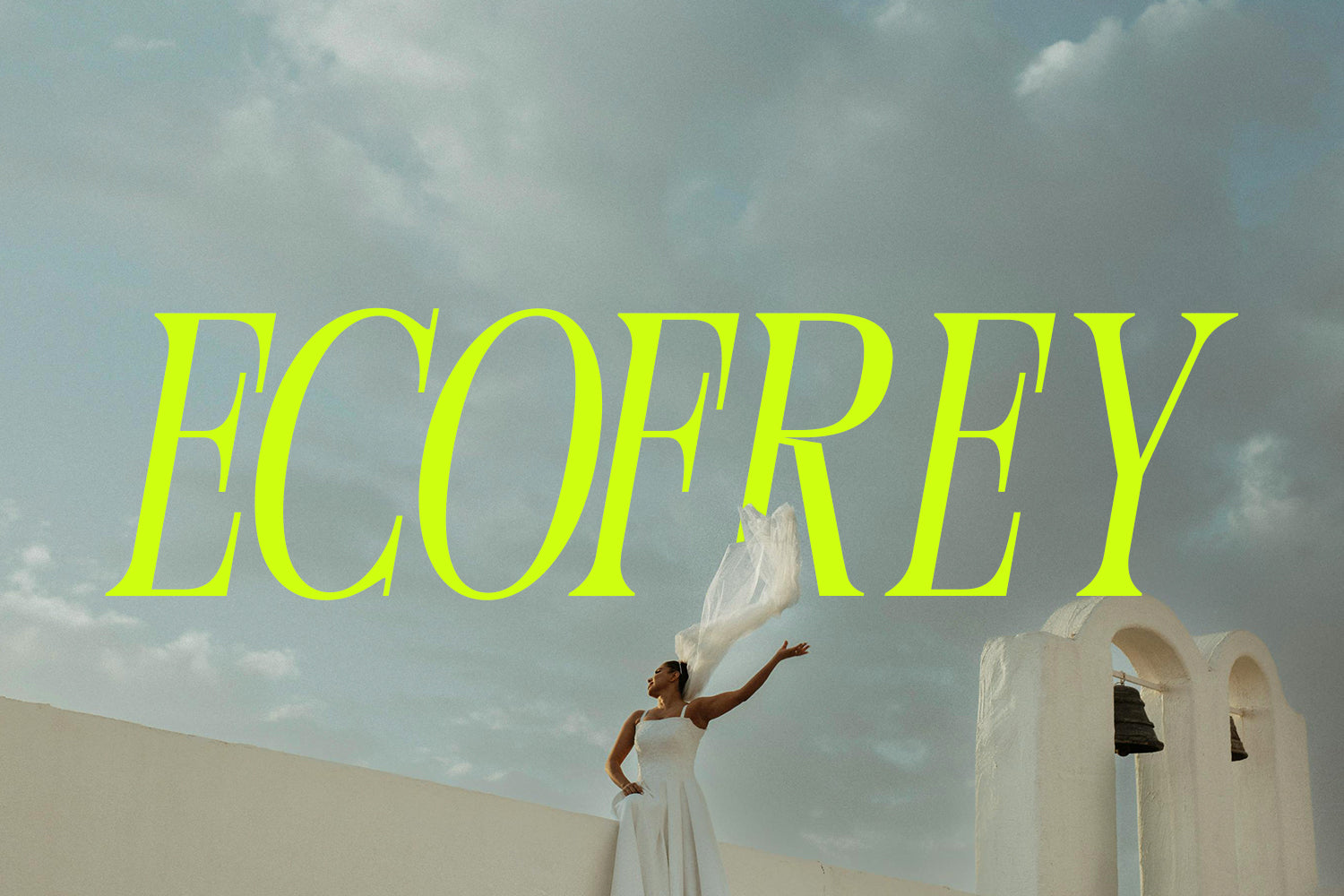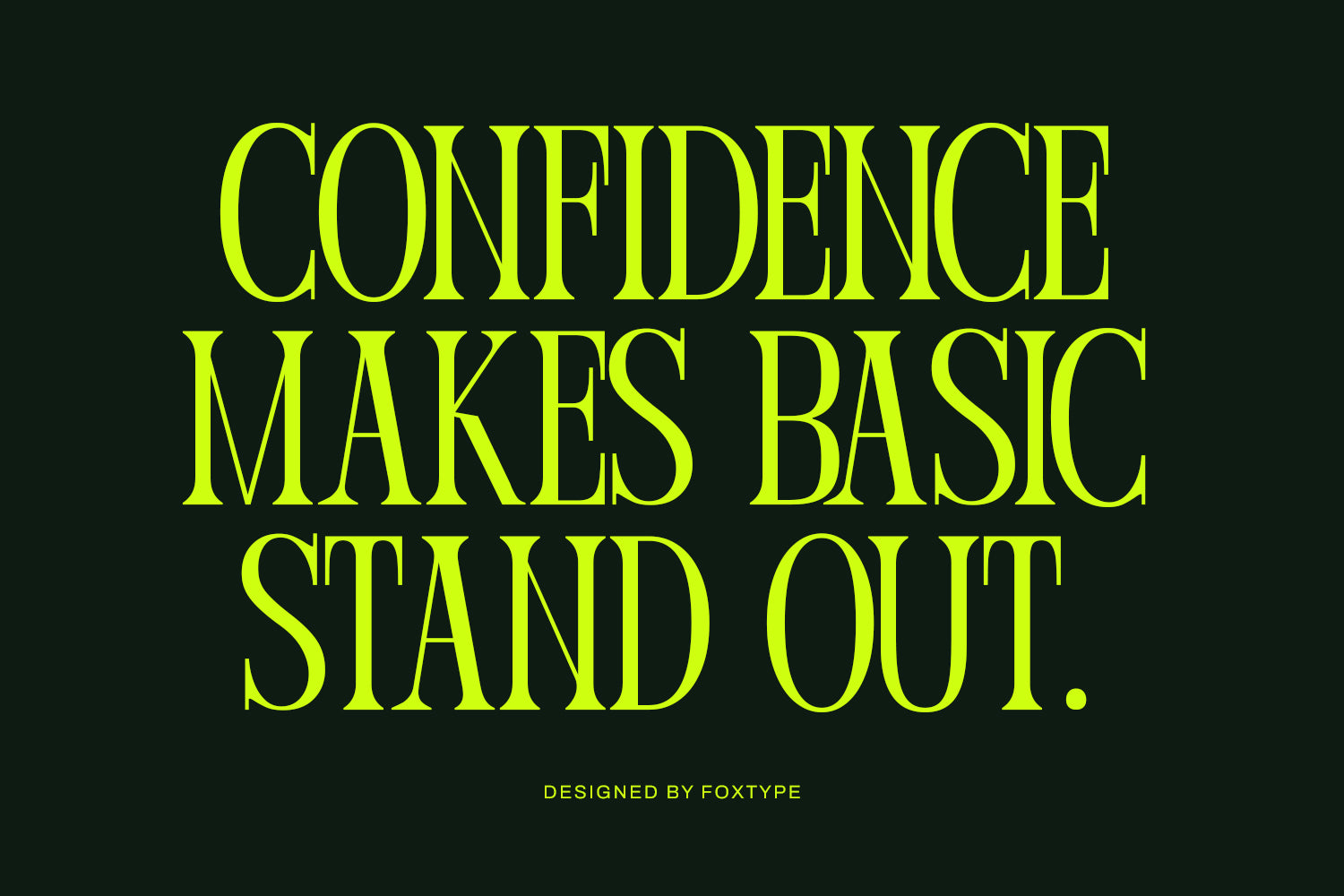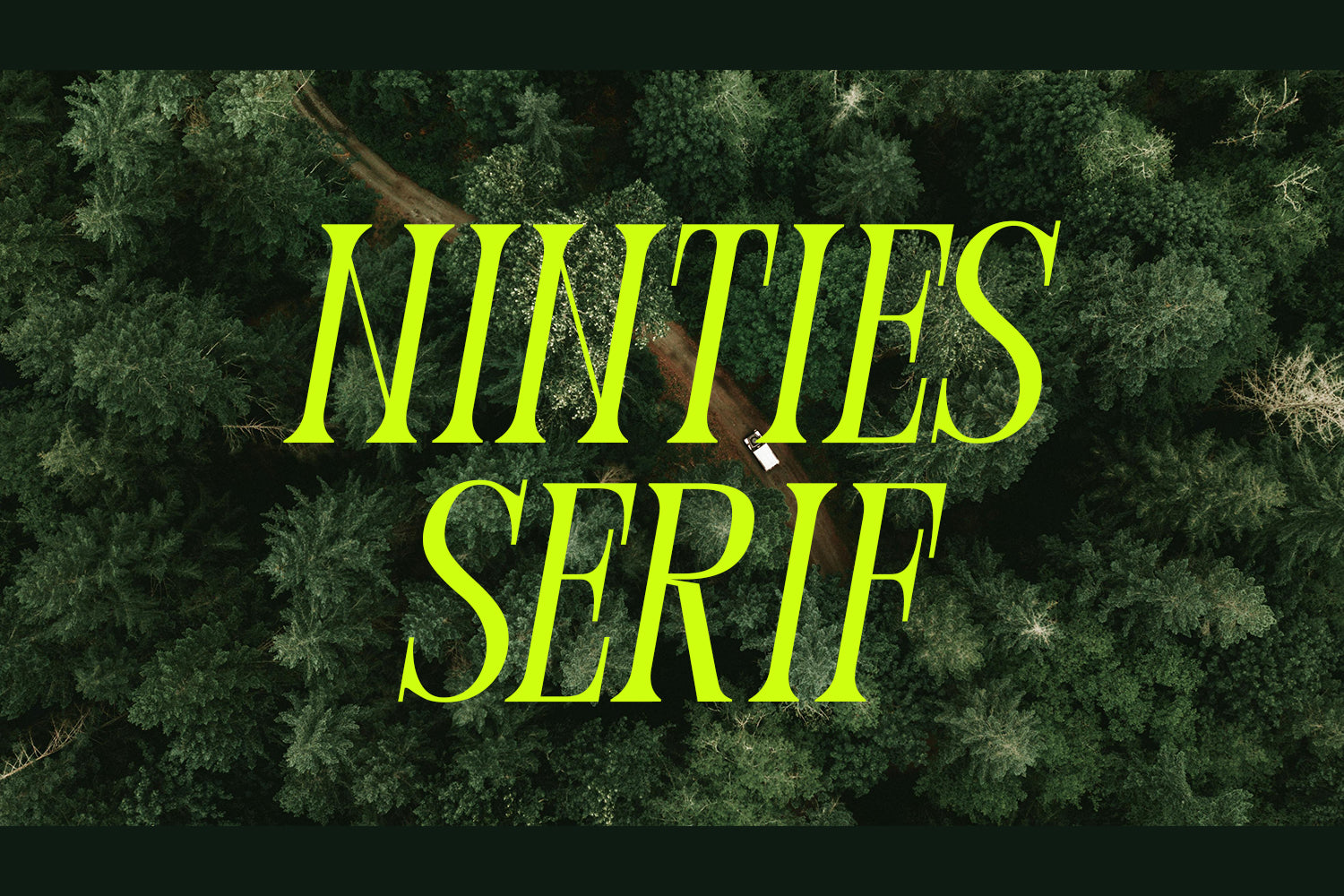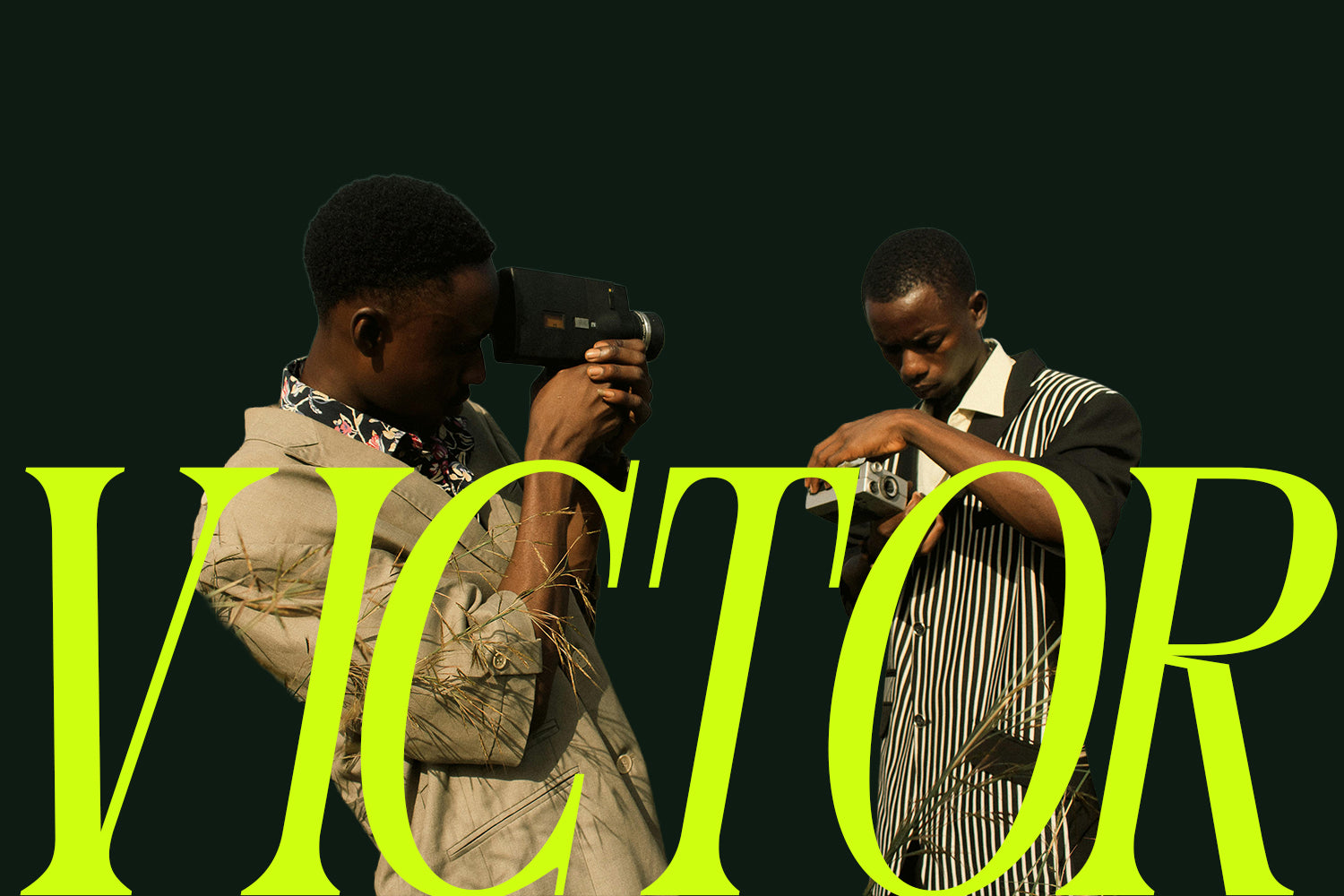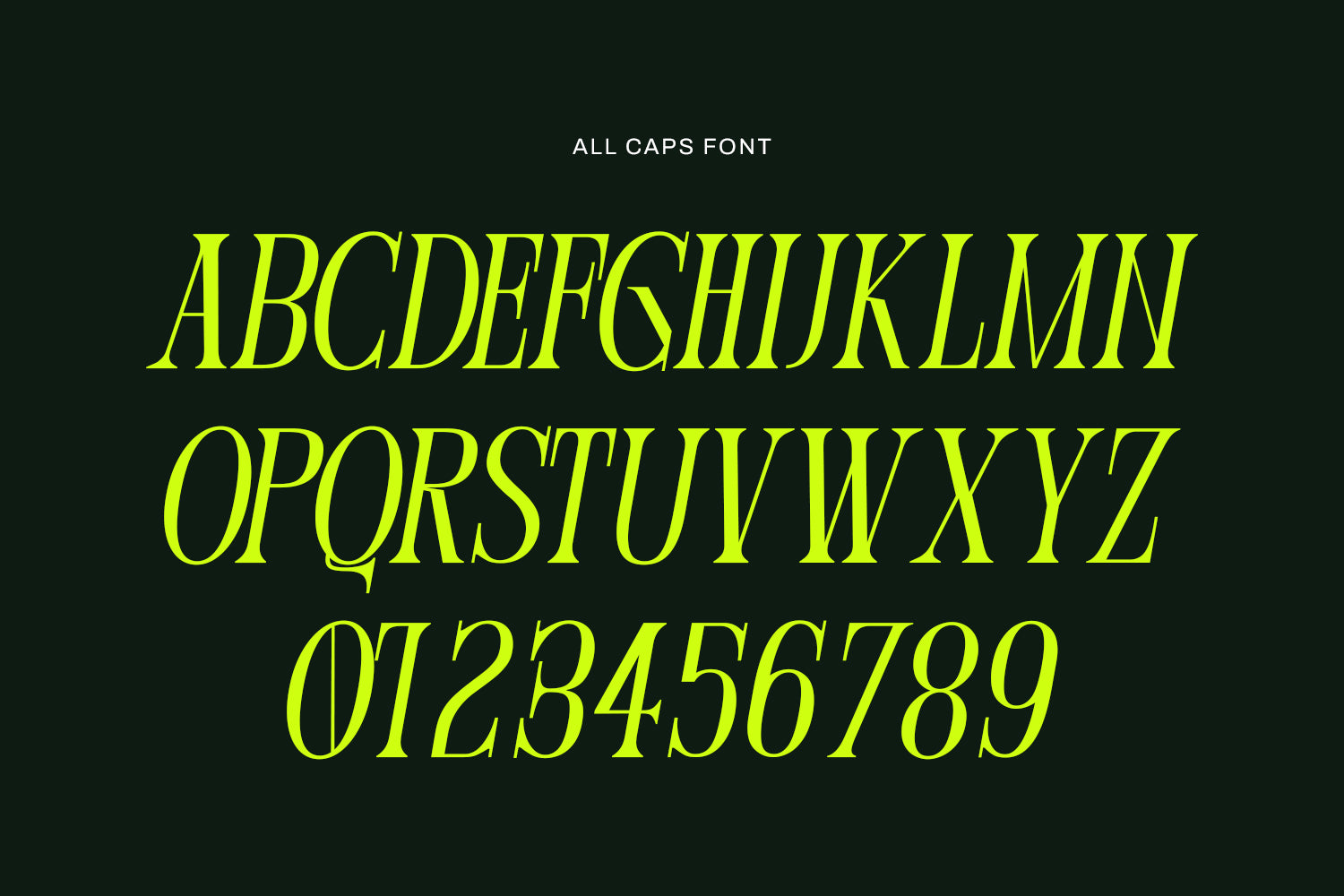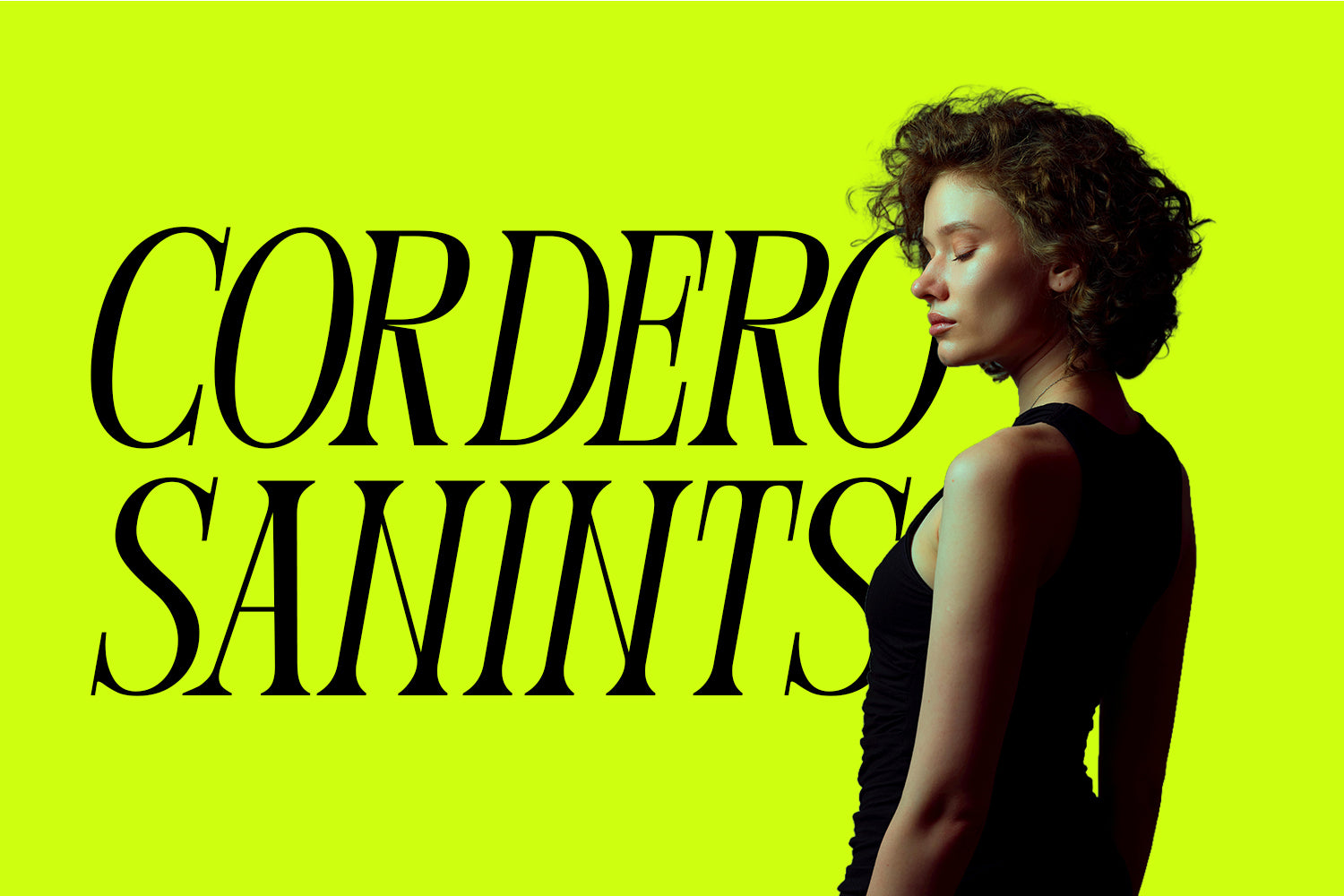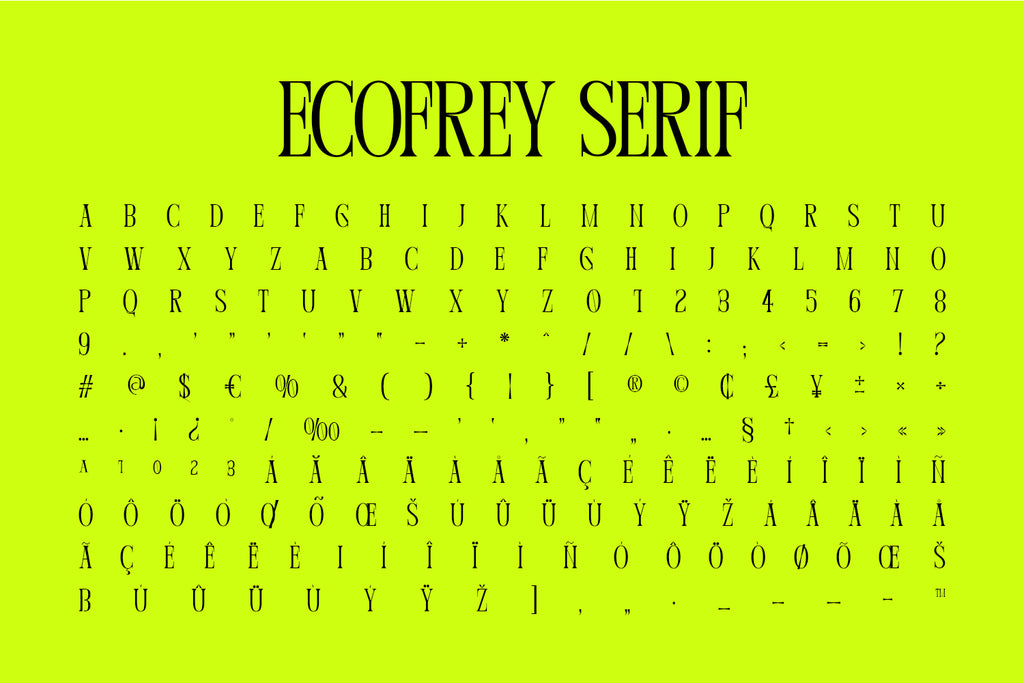
Ecofrey Serif Typeface
Ecofrey Serif Typeface is a modern serif font designed for refined, high-level visual communication. It blends elegant serif traditions with contemporary curves, creating a confident yet sophisticated personality. Ecofrey is ideal for premium branding, editorial layouts, and statement-driven poster designs where clarity and character are equally important.
The typeface includes Normal and Italic styles, offering flexibility for expressive typography while maintaining visual consistency. Its balanced proportions and smooth curves make Ecofrey highly readable at both display and large text sizes.